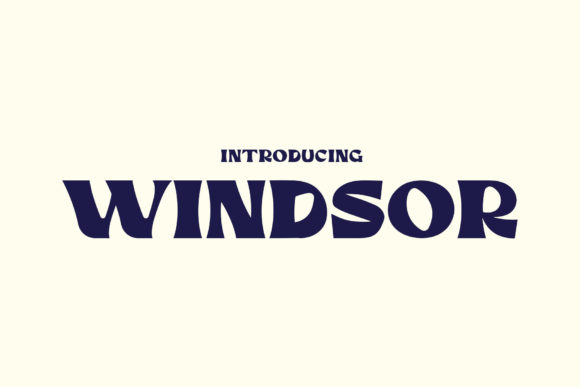
Ignite your designs with Windsor, a groovy display font that dances off the page. Its retro charm, reminiscent of bygone eras, brings a touch of nostalgia and intrigue to any project. Whether you're creating gig posters, vibrant magazine spreads, or eye-catching bucket hats, Windsor's unique personality shines through, captivating your audience and leaving a lasting impression.
Picture this: your New Year's wishes adorned with Windsor's elegant curves, each letter a celebration in itself. Its smooth lines and flowing strokes add a touch of grace and sophistication, making your greetings stand out from the crowd. As your words dance across the screen or printed page, they'll evoke a sense of joy, warmth, and anticipation for the year ahead.
For those seeking adventure, Windsor becomes your trusted companion. Its bold, confident strokes command attention, making it the perfect choice for business retreats and conferences. Let Windsor amplify your message, leaving an indelible mark on your audience. Unleash your creativity and craft presentations that inspire and engage, leaving attendees with a lasting impression.
With Windsor, the possibilities are endless. Its versatility knows no bounds, adapting seamlessly to a plethora of design endeavors. Create enormous stickers that add a pop of color and personality to laptops, water bottles, or planners. Design eye-catching social media graphics that captivate your followers, sparking curiosity and driving engagement. The world is your canvas, and Windsor is your brush, empowering you to paint a picture that resonates with your audience.
Don't settle for ordinary fonts that blend into the background. Embrace the extraordinary with Windsor, a font that demands attention, ignites imaginations, and leaves a lasting impression. Download Windsor today and embark on a creative journey like never before, where every design tells a story and every word dances with delight.